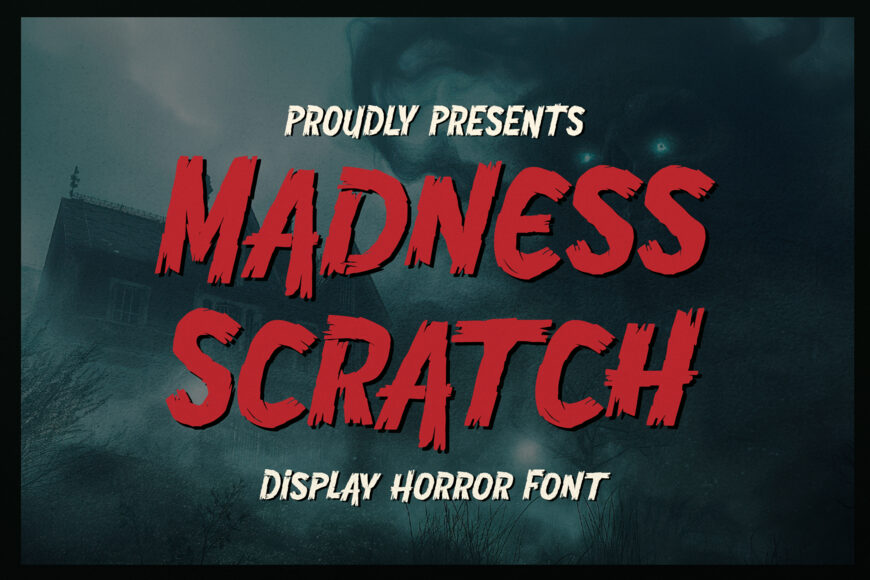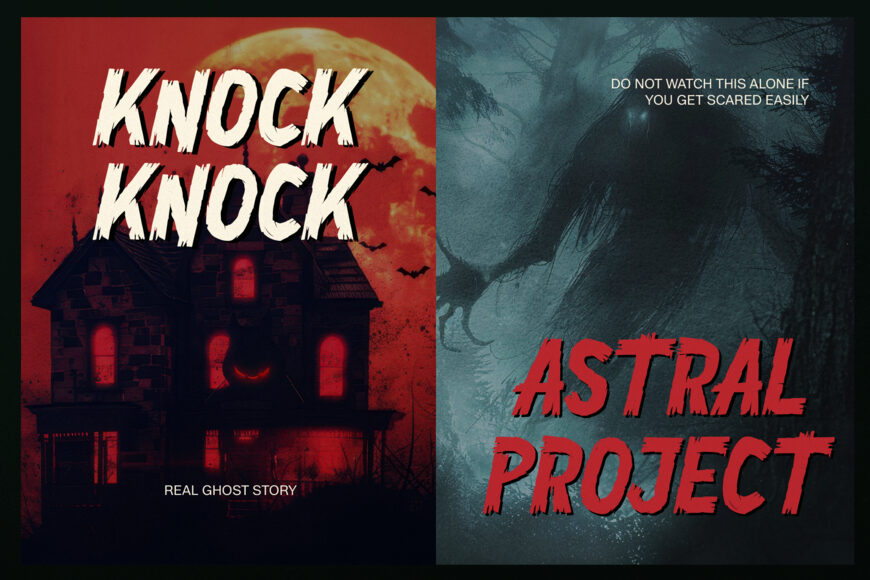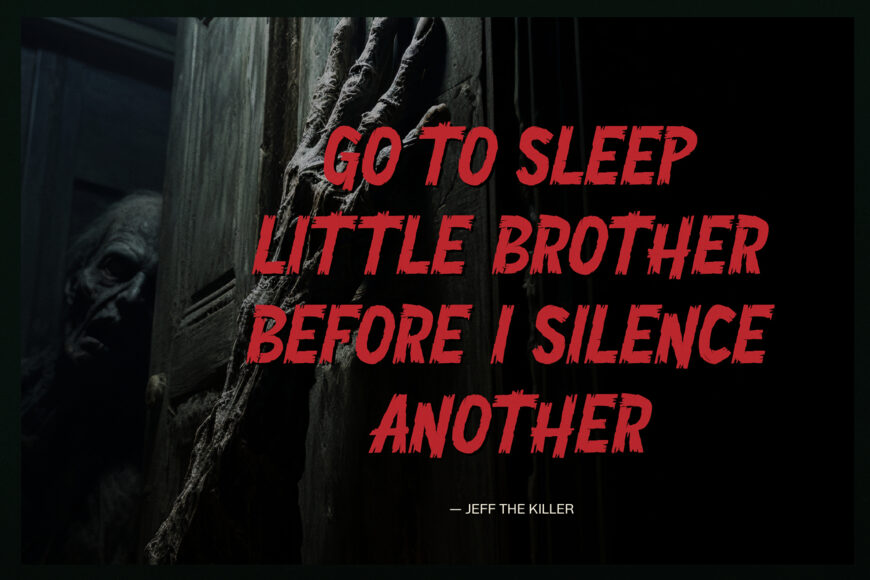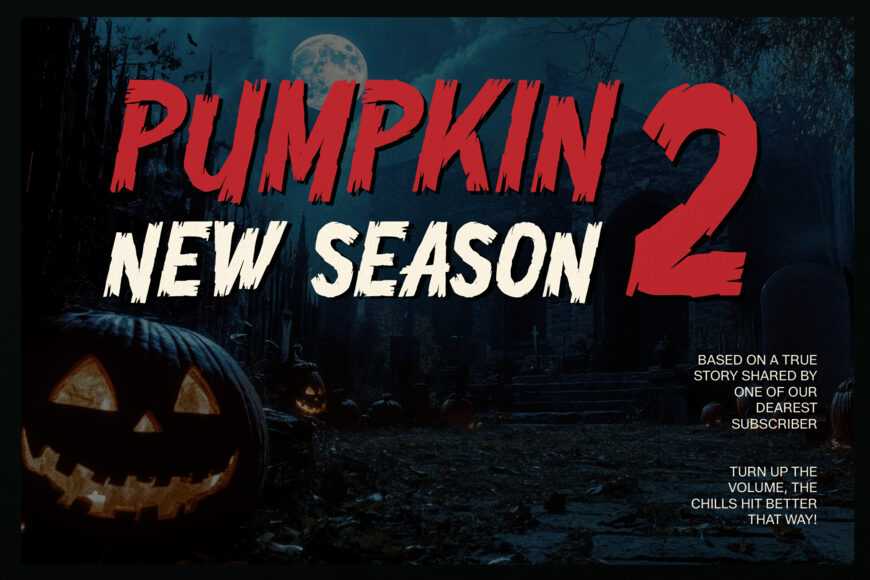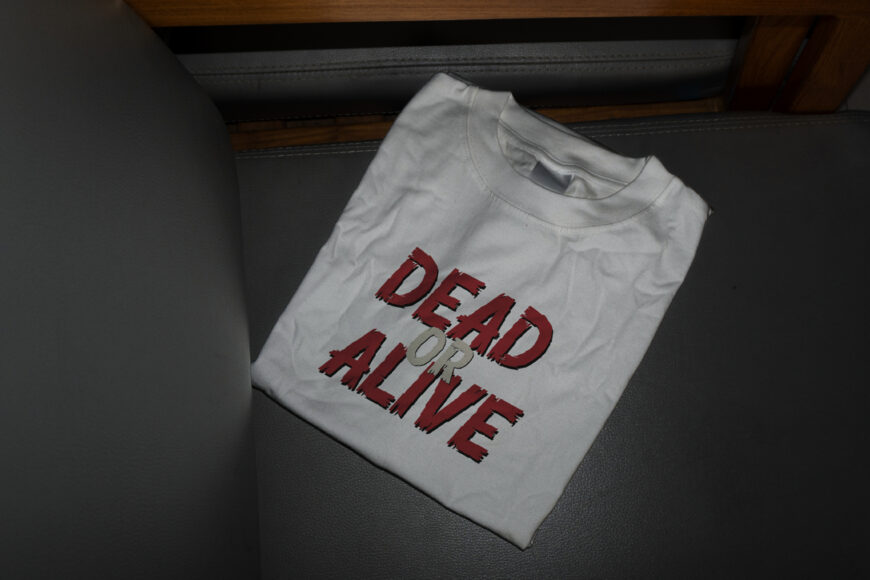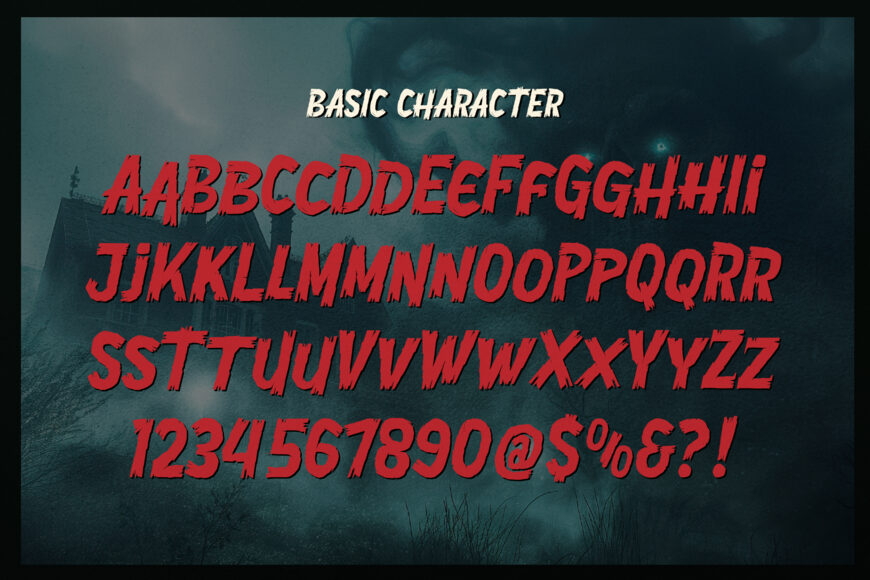
Unleash chilling suspense, chaotic horror energy, and raw terrifying impact with Madness Scratch! Built as a display horror font, it features bold, aggressive letterforms marked by jagged claw scratches, rough distressed edges, and an erratic brush-stroke structure. Its intense, sinister silhouette instantly sets a terrifying mood, making your titles feel truly nightmarish and impossible to ignore.
Ideal for horror movie posters, Halloween party invitations, thriller book covers, escape room branding, spooky apparel, haunted house signage, and custom Cricut or Silhouette craft SVG projects!